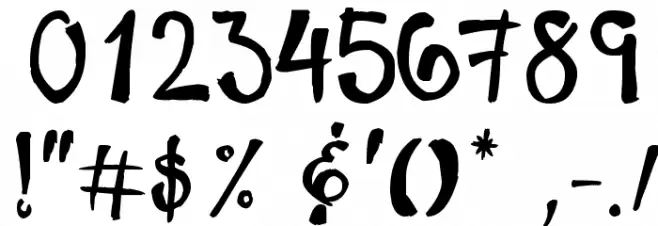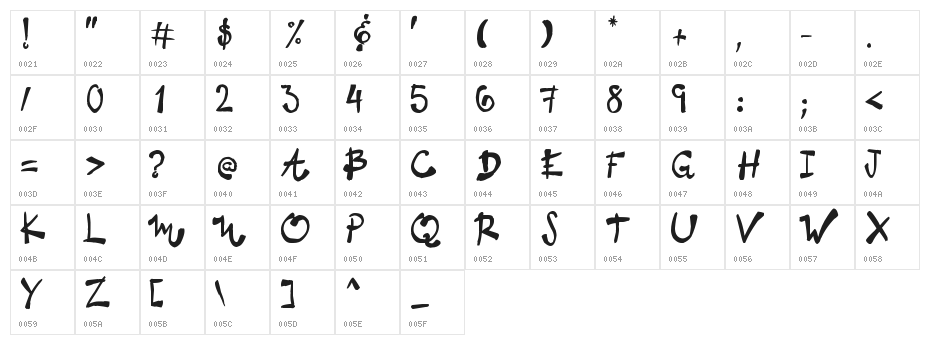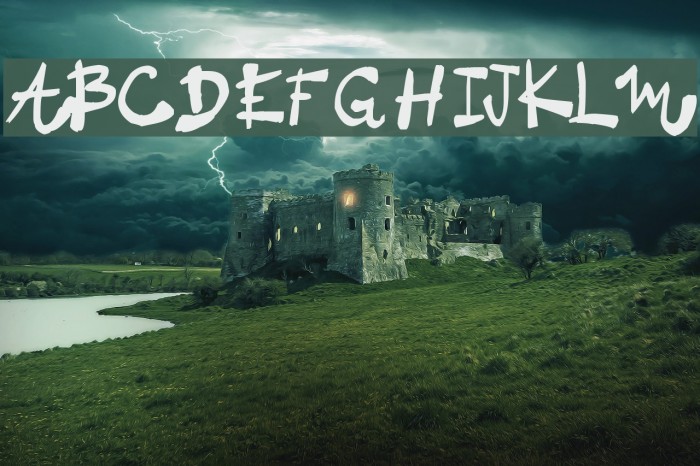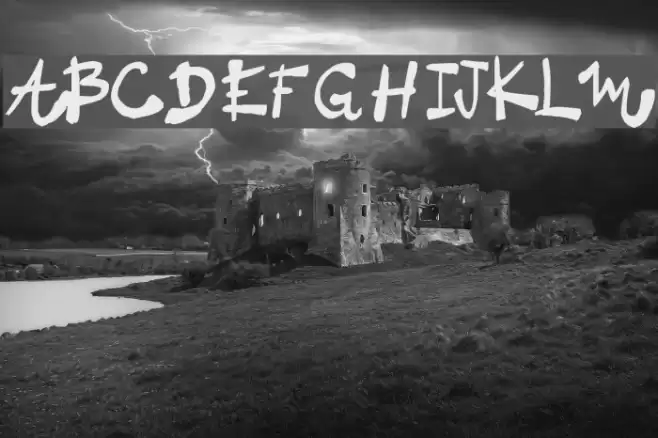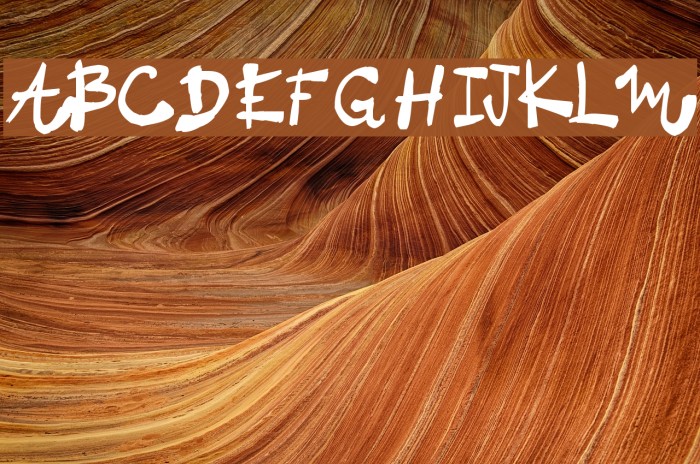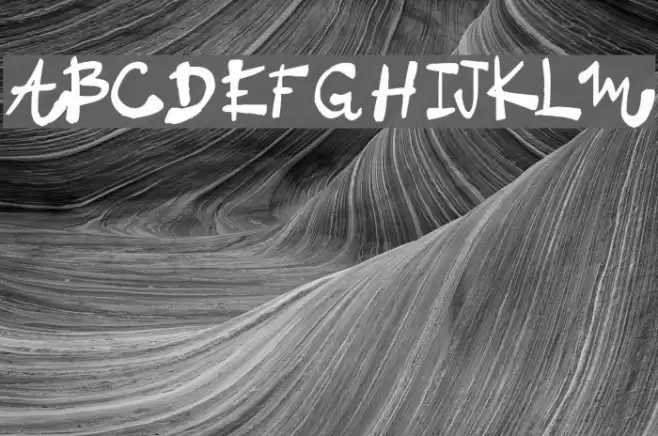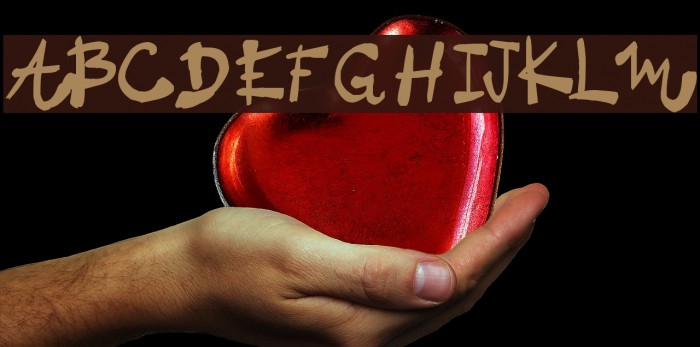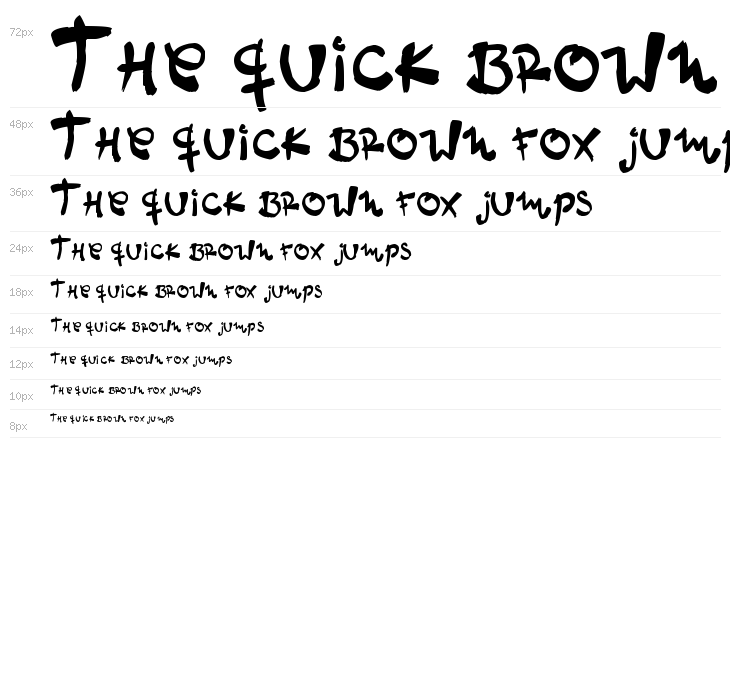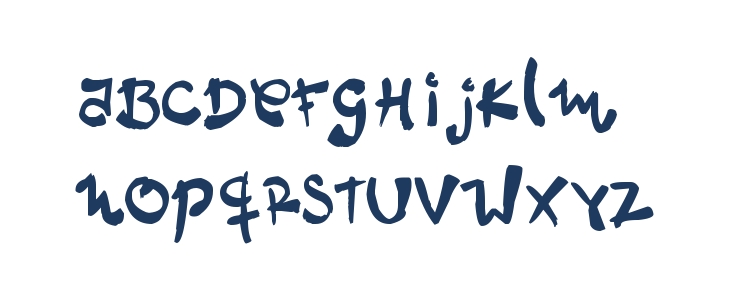
Neto Font
Neto Description
This font exhibits a playful and dynamic handwritten style, characterized by its bold and expressive strokes. The letters are irregular and slightly tilted, giving a sense of movement and spontaneity. The uppercase and lowercase letters maintain a consistent style, with exaggerated curves and loops that add to its whimsical appearance. Numbers and special characters follow the same energetic design, making the font suitable for creative and informal applications. The overall look is bold and eye-catching, perfect for projects that require a touch of personality and flair.